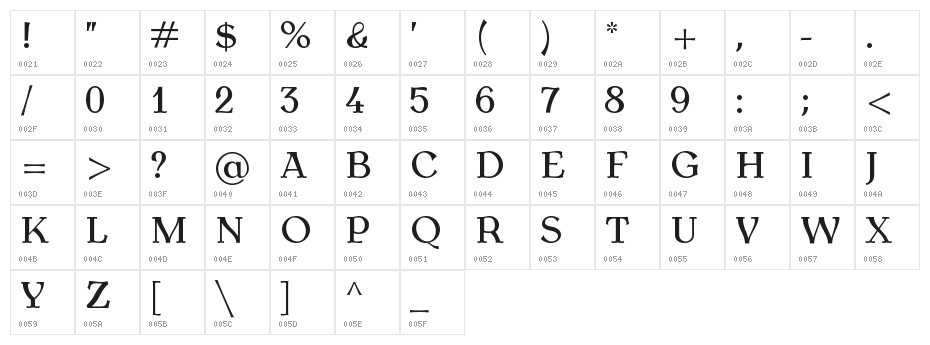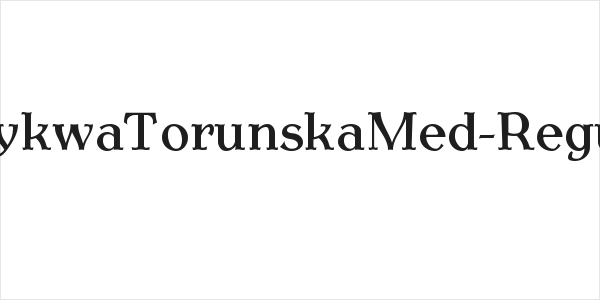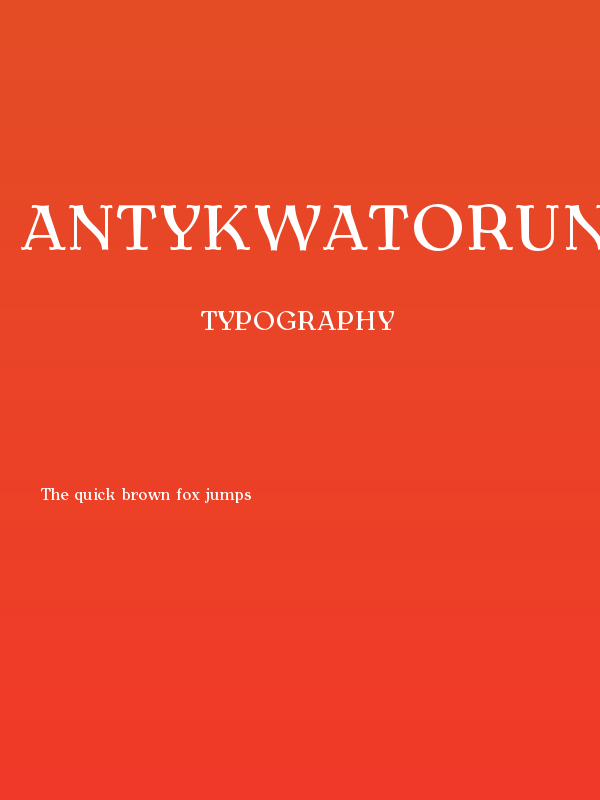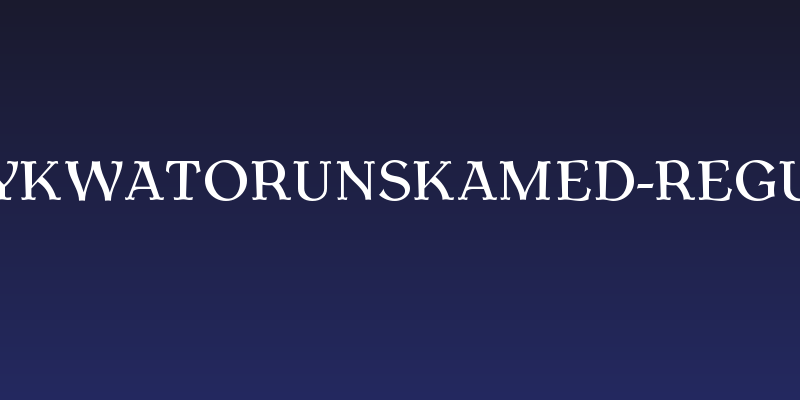
AntykwaTorunskaMed-Regular Font
AntykwaTorunskaMed-Regular Description
This font features a classic serif style with a touch of elegance and sophistication. The characters are well-defined with sharp serifs and a balanced proportion, giving it a timeless appeal. The uppercase letters are bold and commanding, while the lowercase letters maintain a harmonious flow. The numerals are distinct and clear, making them suitable for various applications. The special characters are crafted with precision, adding to the font's versatility. Overall, this font exudes a traditional yet refined aesthetic, suitable for formal and professional use.